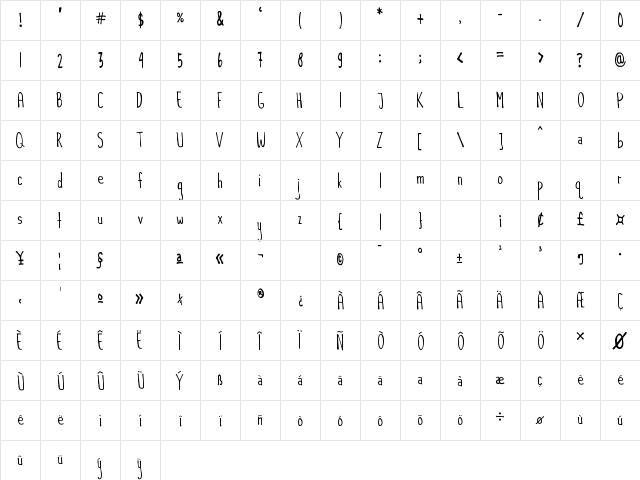
Flamingos Regular
| Foundry | Wellscripst Studio Co. |
| Designer | welianto |
Design Context for Flamingos Typeface
Flamingos offers clean, dependable letterforms without strong stylistic allegiance, making it a practical choice for designers who need flexibility.